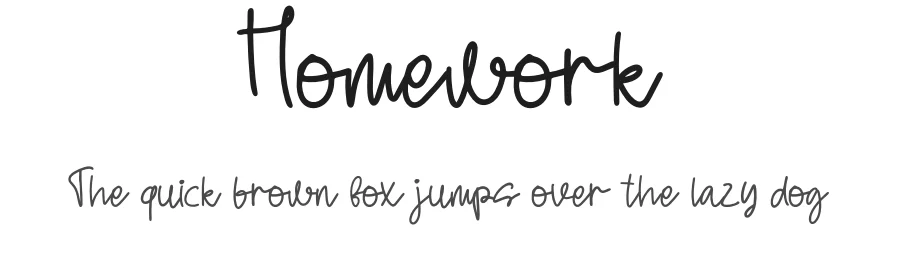
About Learn To Write Font
Learn To Write Specifications
| Font Family | Learn To Write |
| Full Name | Learn To Write |
| Glyph Count | 88 glyphs |
Learn To Write supports 197 languages.
Learn To Write Font is a script font that shines as a display or heading face. Pair it with a clean sans-serif or serif font for body text β the contrast creates a clear hierarchy while the two styles stay balanced and easy to read.
Learn To Write Font